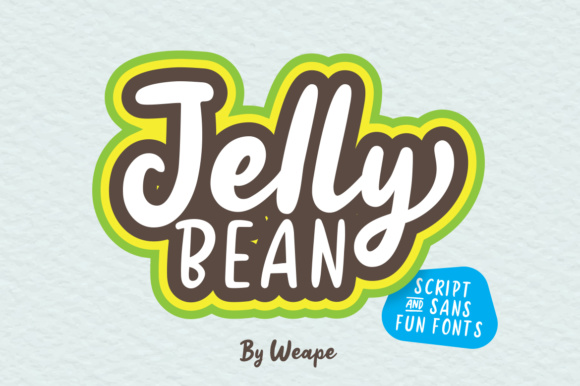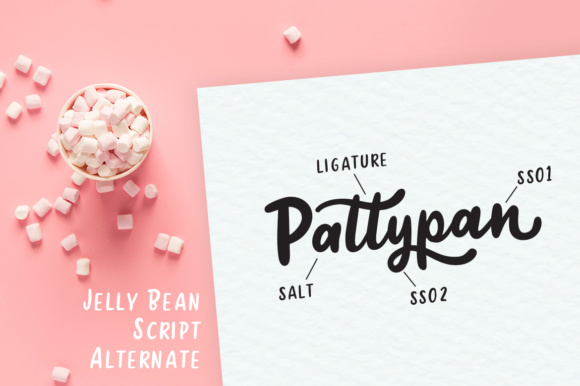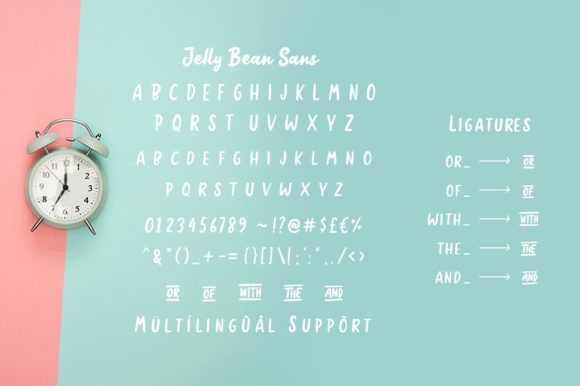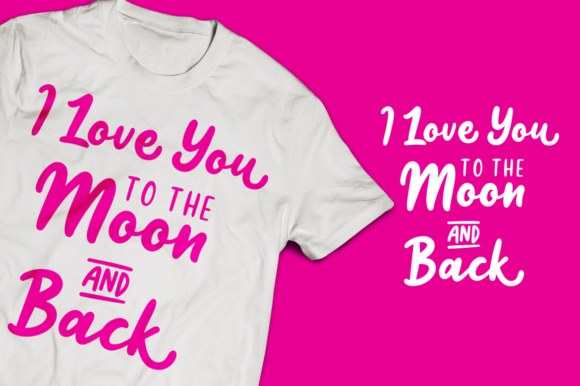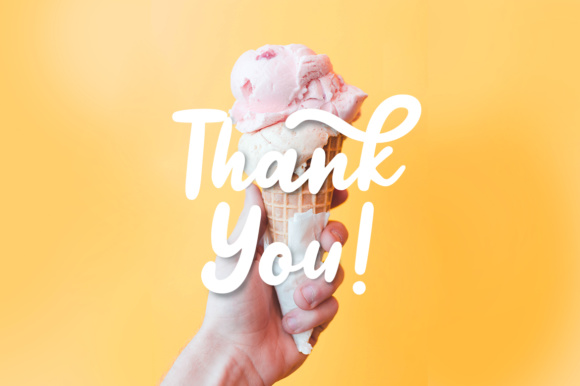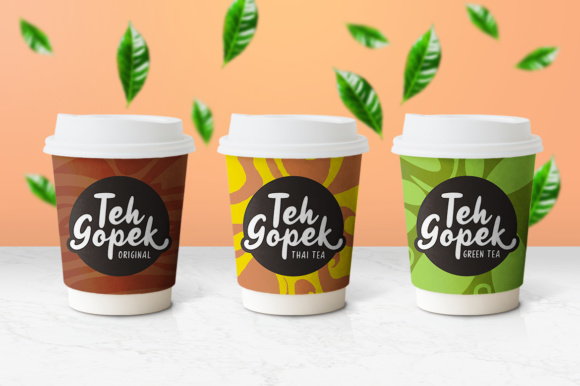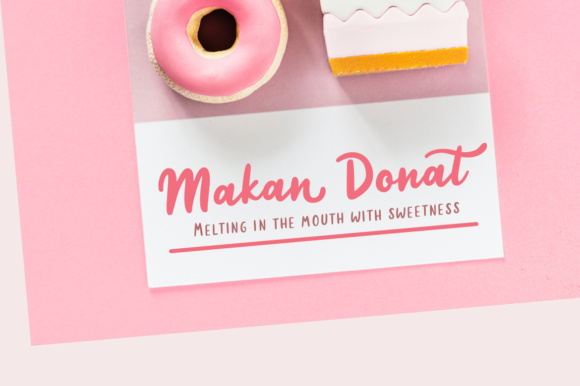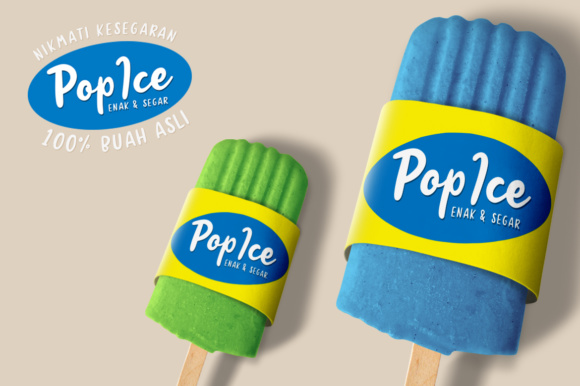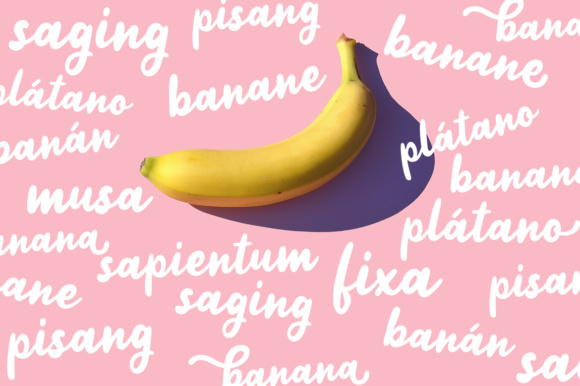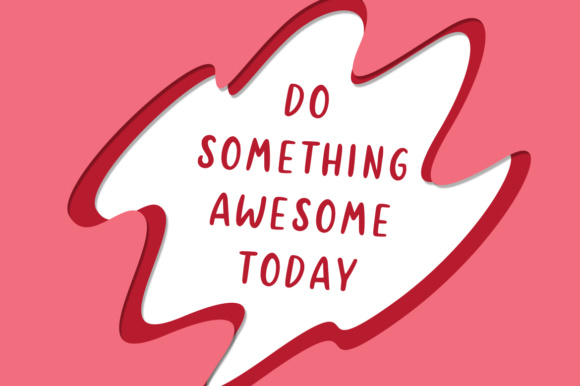
Jelly Bean Font
About Jelly Bean Font
The Jelly Bean is a fun, hand lettered font which comes in a script & sans version. Combine the two font styles to create a cute and fresh design!